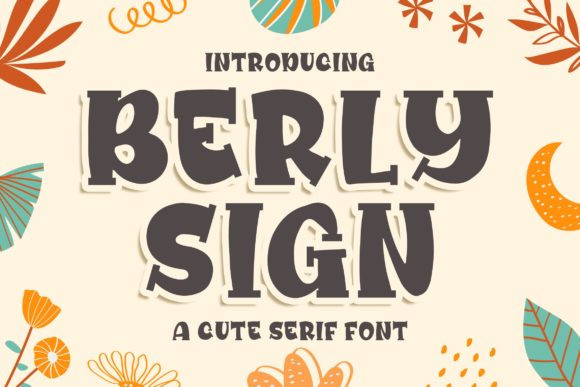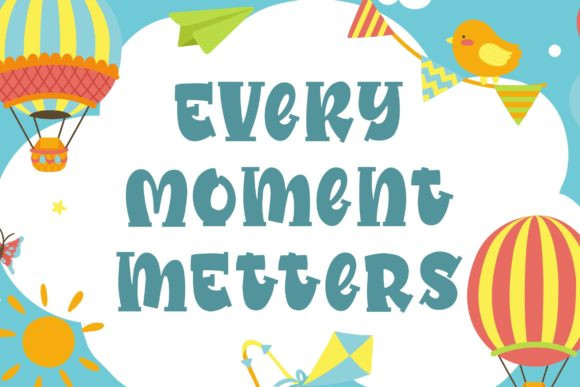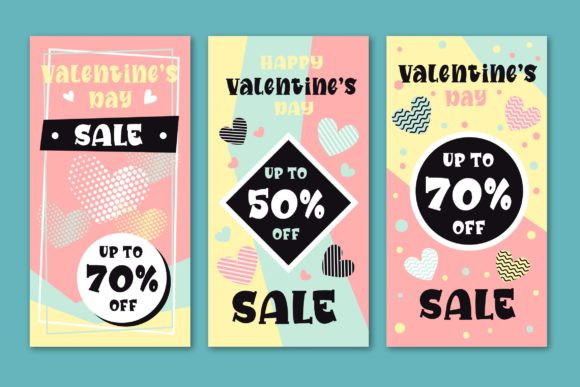
Berly Sign Font
Berly Sign is a cute and casual handwritten font with an incredibly friendly feel. Whether you’re looking for fonts for Instagram or calligraphy scripts for DIY projects, Berly Sign will turn any creative idea into a true piece of art!